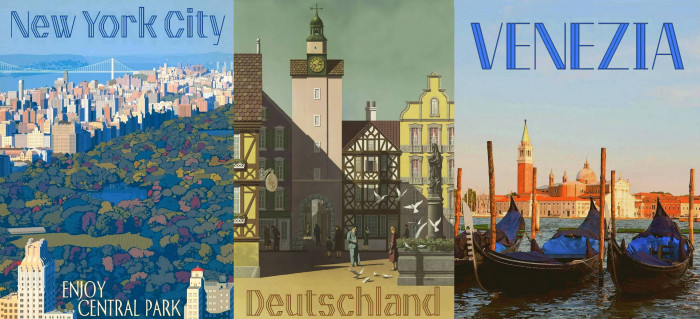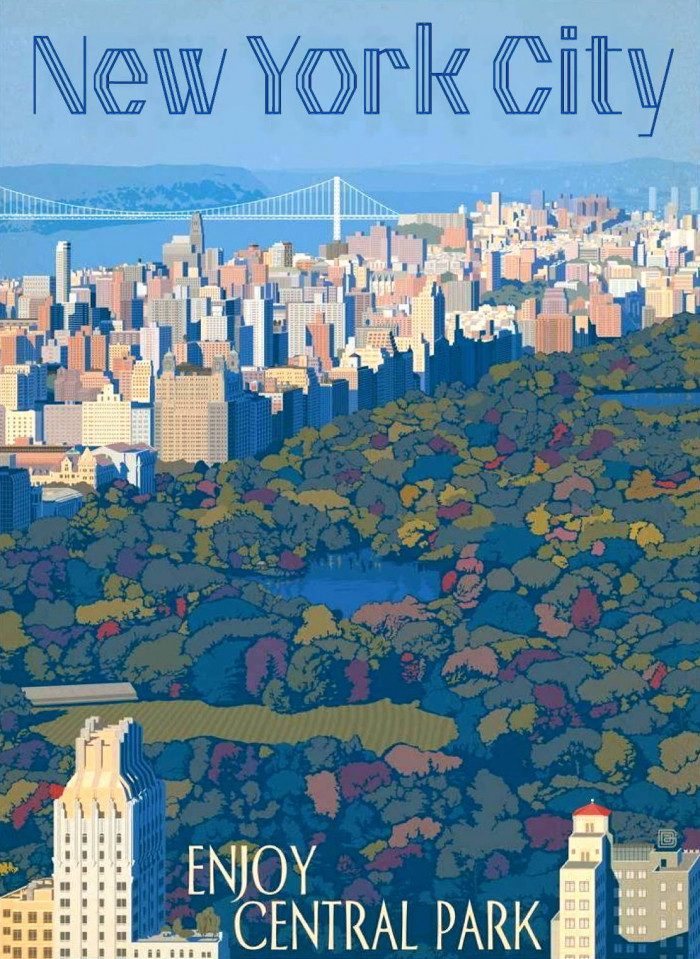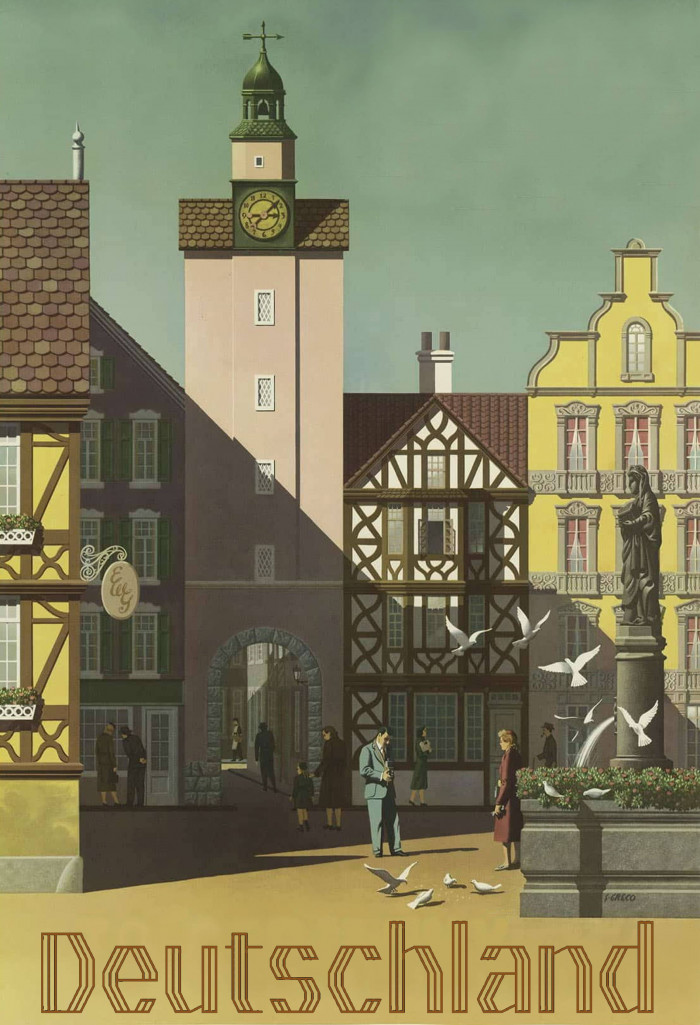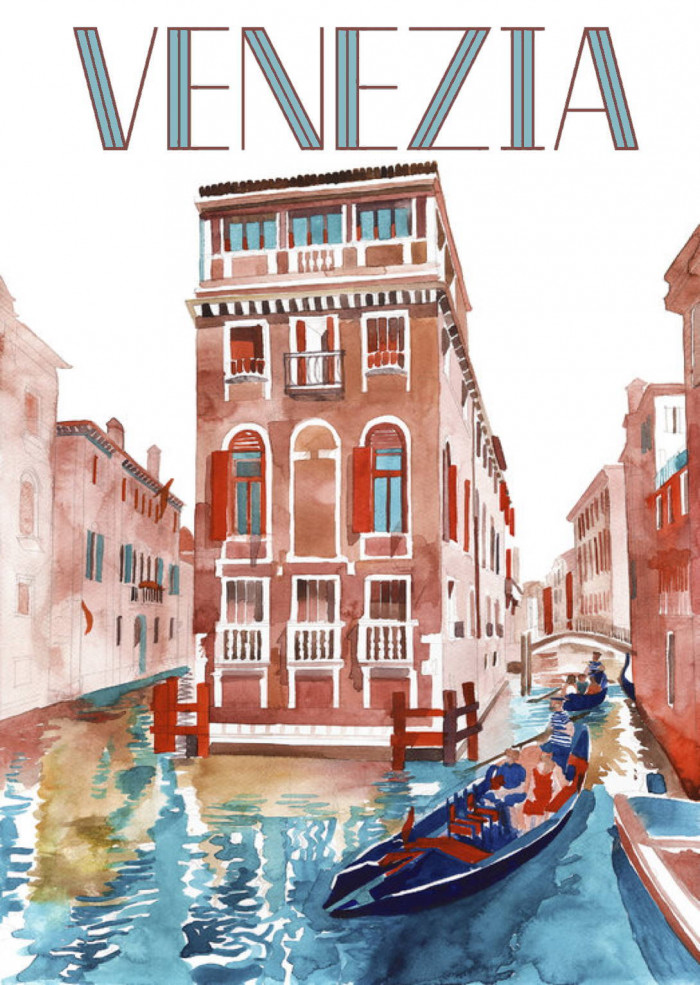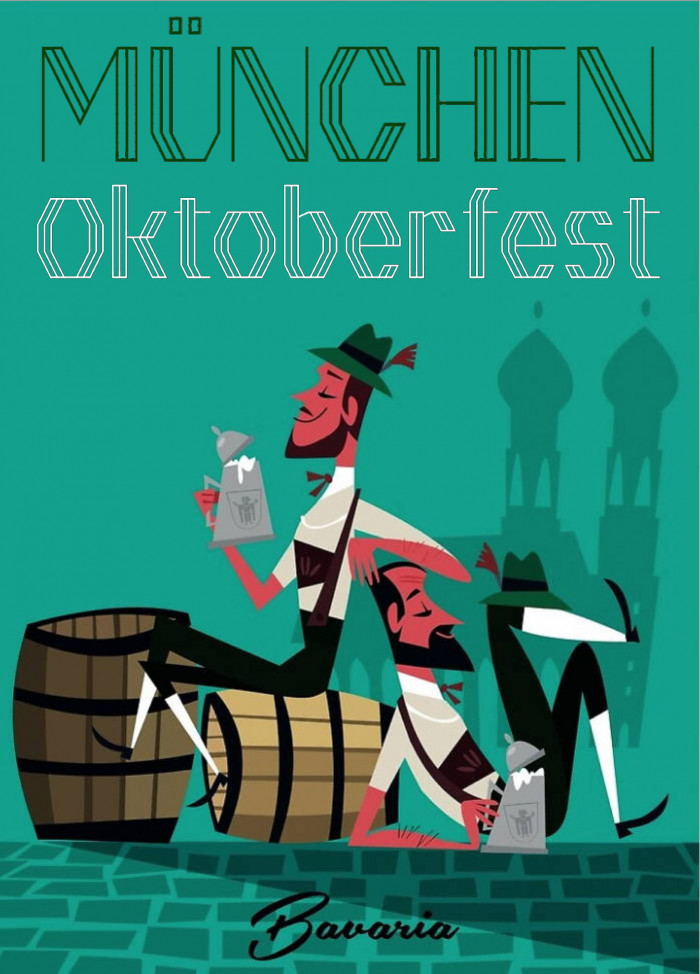
This font is another of the products that a challenge as lively as TwentiesComp generates in FontStruct. You spend two weeks (or more) devising and building original and competitive fonts in a crazy race, but your brain does not stop when the Comp is over and continues through the nooks and crannies that you had demanded of it before, searching and producing new suggestions. This was one of those post-hoc ideas that came up when the fonts to present were already finished. Hope I don't detract too much with it the great level that this Comp has had. Thanks for your compreension.
I really miss the freedom of being able to travel like before, have you noticed this by watching my samples? The good times will return, we need it.
Beautiful design, and fantastic samples as always!
Nice and balanced design. Great demo pictures, full of sunshine. 10/10
Beautiful octagonal triline and tasty samples.